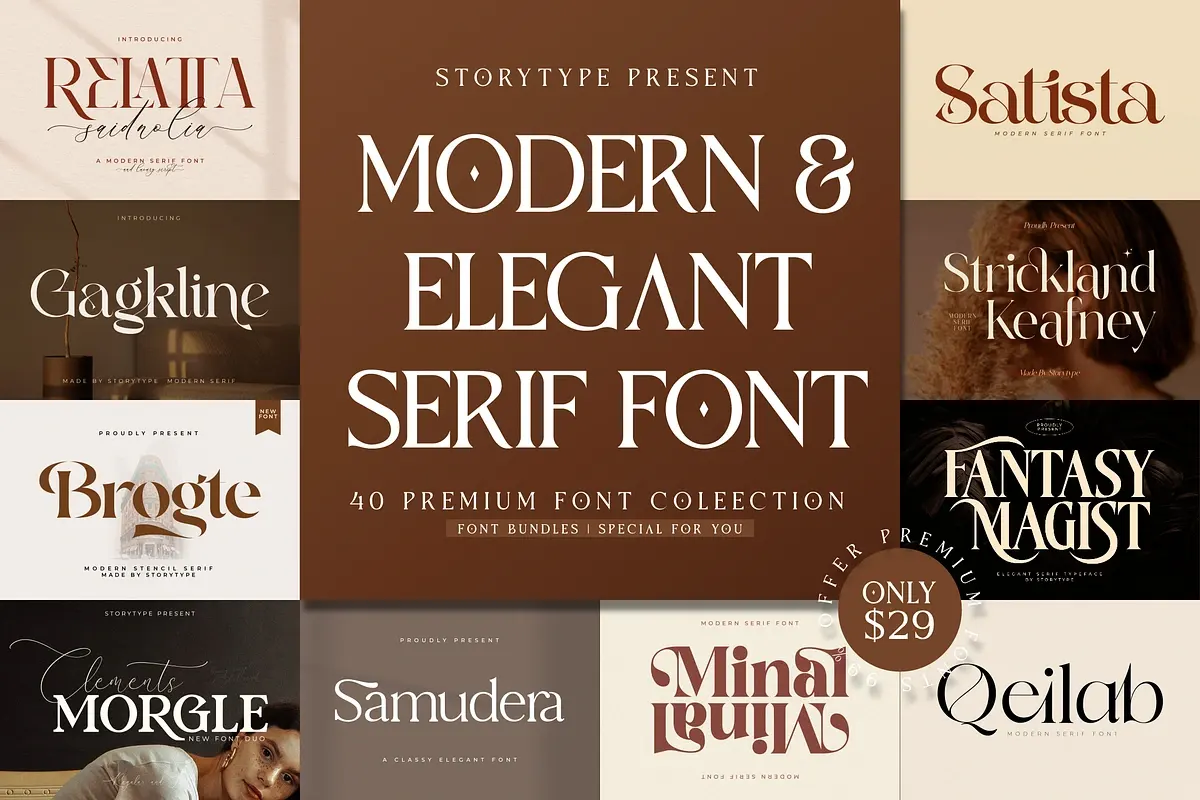
Modern & Elegant Serif Font Free Download
Modern & Elegant Serif Font Free Download is a sleek and refined typeface designed to bring a contemporary touch to classic serif styling. Featuring clean lines, sophisticated serifs, and well-balanced letterforms, this font is perfect for luxury branding, high-end editorial design, fashion logos, invitations, and other upscale creative projects.
Its modern proportions and elegant design make it ideal for both large display text and smaller body copy, offering versatility across various media. Whether you're crafting a polished logo, designing a refined website, or creating elegant marketing materials, this font provides a timeless yet modern feel.